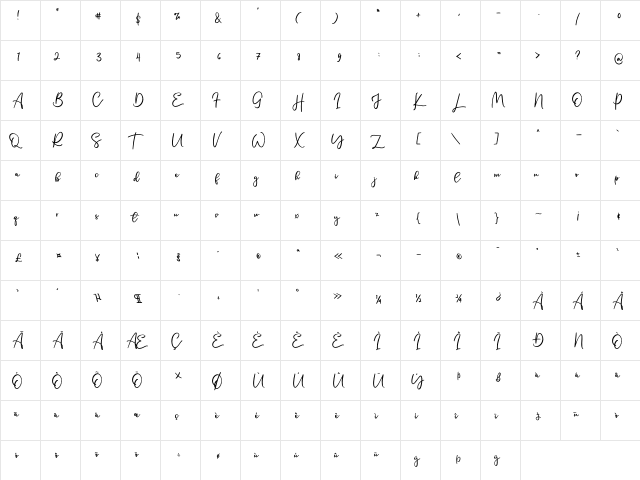
Single Signature Ordinary Regular
Design Context for Single Signature Ordinary Typeface
Single Signature Ordinary is a composed and adaptable typeface that performs quietly and consistently across a wide range of design contexts.